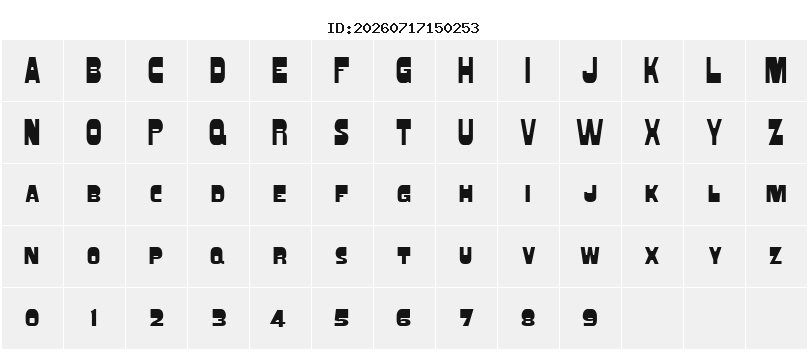
Blacktop Small Caps.ttf is a modern, elegant sans-serif font designed for ultimate readability and visual harmony. Perfect for branding, headlines, web design, and print materials.